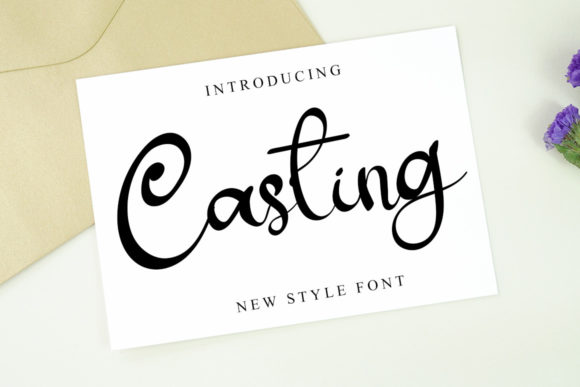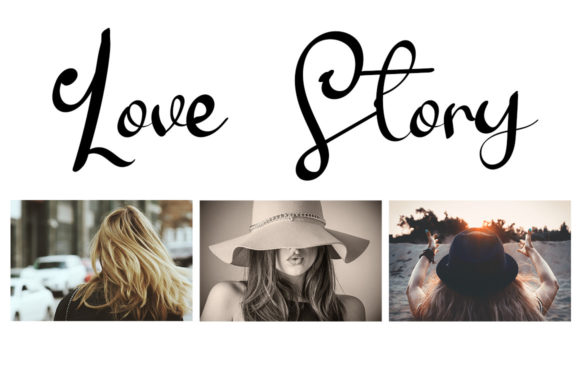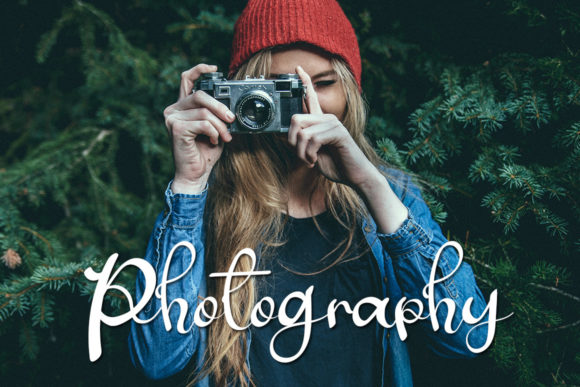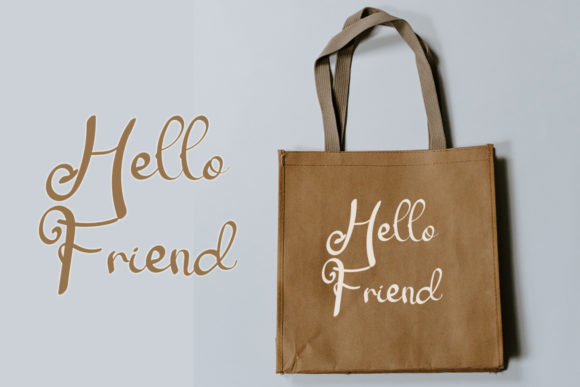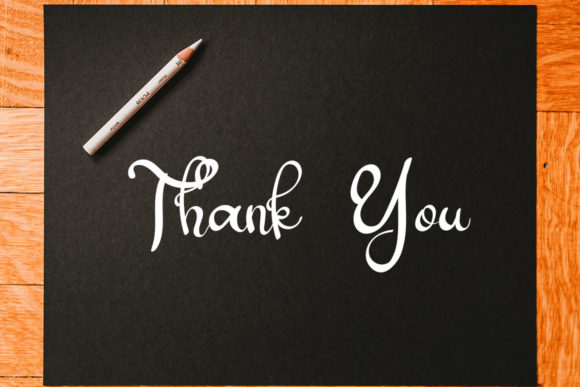
Casting Font
About Casting Font
Casting is a chic, trendy script font that emanates confidence and versatility. Its stylish alternates and ligatures make this font the perfect match for any project.